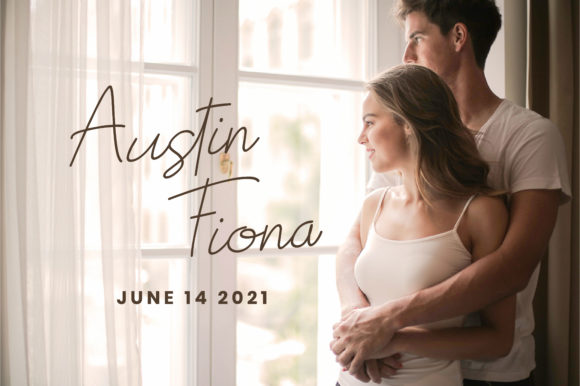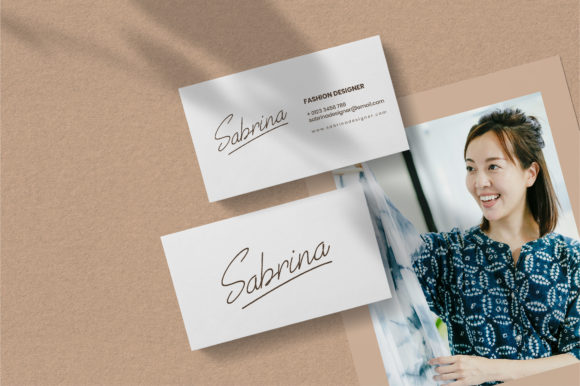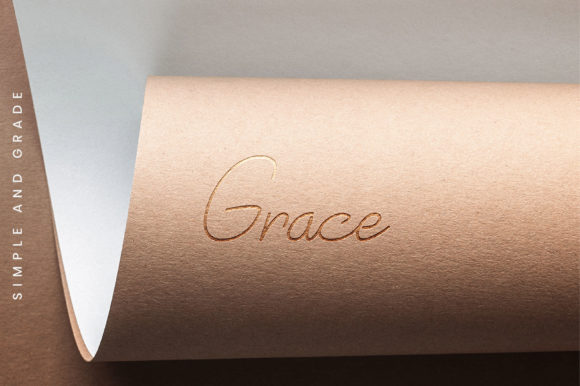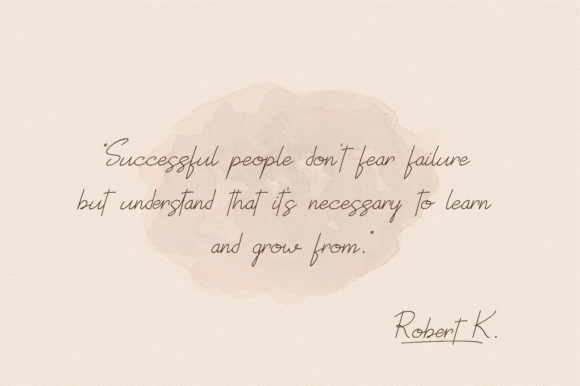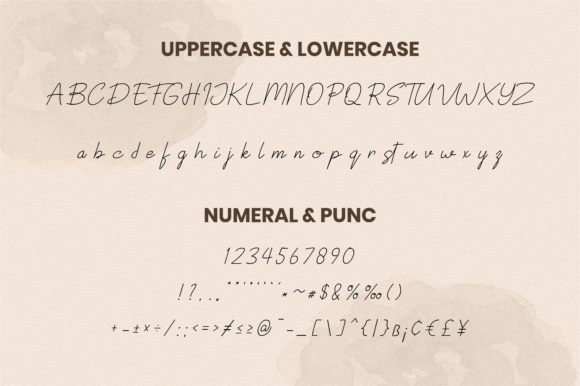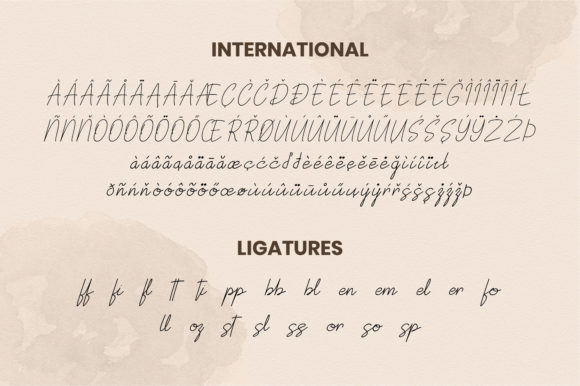
Introduction to Mandasari Script Font
Have you ever been stuck on a design project, trying to find the perfect font to convey the emotions and feeling you want to express? For me, that moment came when I was tasked with creating a wedding invitation for a close friend. I wanted something elegant, yet whimsical, and that’s when I stumbled upon the Mandasari Script Font.
This stunning script font is more than just a pretty face – it’s a game-changer for designers looking to elevate their creative projects. With its clean, thin, and smooth vibe, the Mandasari Script Font is perfect for creating gorgeous wedding invitations, beautiful stationery art, eye-catching social media posts, and much more.
Key Features of Mandasari Script Font
- Unique and elegant script design perfect for creative projects, wedding invitations, and special occasions.
- Comes in a single weight, ideal for designers who want a consistent and professional look in their designs.
Honest Review: Mandasari Script Font
As a designer, I’m always on the lookout for high-quality design resources to elevate my creative projects. The Mandasari Script Font is one such find that has caught my attention. With its elegant and refined feel, it’s perfect for adding a touch of sophistication to your designs.
- ✨ Beautiful, hand-drawn feel that’s perfect for creative projects
- ✨ Wide range of languages supported, making it a great resource for global designs
- ⚠️ Limited font sizes and styles available, which may limit its versatility
- ⚠️ Not suitable for bold or dramatic typography, as it’s designed for more refined and elegant designs
Overall, I’m impressed with the Mandasari Script Font’s elegant feel and versatility. While it may not be suitable for every design project, it’s a great resource to have in your toolkit for those creative projects that require a touch of sophistication.
Mandasari Script Font
The Mandasari Script Font is a beautiful and elegant font that can add a touch of sophistication to your creative project. With its high-quality design and transparent background, it’s a great resource for designers and artists looking to elevate their work.
The Mandasari Script Font can be used in a variety of design applications, including:
Tips for Getting the Most Out of the Mandasari Script Font
To get the most out of the Mandasari Script Font, try using it in combination with other design elements, such as images and shapes. You can also experiment with different font sizes and colors to create a unique look.
The Mandasari Script Font is perfect for a variety of creative projects, including:
- Special occasion cards and gifts
Alternatives to Mandasari Script Font
1. Carolyna Pro Font
Carolyna Pro is a high-quality, elegant script font perfect for design projects that require a touch of sophistication. It’s ideal for use in wedding invitations, branding, and other creative projects where a refined aesthetic is desired. Carolyna Pro offers a free trial, but a paid license is required for commercial use.
Compared to Mandasari Script Font, Carolyna Pro has a more refined and polished appearance, making it suitable for high-end design projects. It also offers a wider range of styles and weights, providing designers with more flexibility.